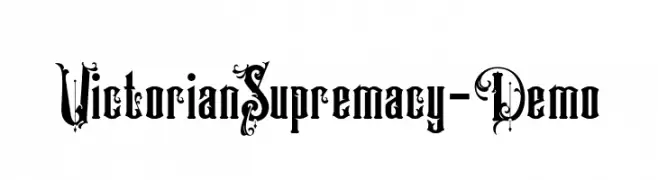
( Fonts by The Scriptorium - Dave Nalle )
An ornate and decorative font with intricate patterns and embellishments.
Ornate, decorative frames and borders with vintage flourishes.
( Fonts by Dieter Steffmann )
An ornate, decorative font with intricate floral patterns in each letter.
( Fonts by Dieter Steffmann )
An ornate, decorative font with intricate floral embellishments on uppercase letters.
( Fonts by Renn Crump - http://moorstation.org/typoasis/designers/renncrump/ )
A bold, decorative font with ornate swirls and vintage flair.
An ornate and decorative font with intricate floral embellishments.
An ornate, decorative font with intricate floral patterns in each letter.
An ornate, boxed decorative font with intricate floral patterns.
( Fonts by Barry Bujol - theoriginal19.blogspot.com )
An ornate, decorative font with intricate hollow designs and vintage flair.
( Fonts by www.houseoflime.com )
Intricate vintage-style decorative dividers.
( Fonts by www.houseoflime.com )
Ornamental divider glyphs with intricate, symmetrical designs.
( Fonts by Toto )
An ornate and decorative serif font with intricate floral embellishments.
( Fonts by Chank Co. - www.chank.com )
An ornate, vintage-style font with intricate flourishes and bold, decorative elements.
An ornate, decorative font with distressed textures and elaborate flourishes.
( Fonts by www.dcoxy.com )
A collection of decorative ornaments and flourishes for elegant design projects.
( Fonts by Maelle.K - Thomas Boucherie )
An ornate, decorative font with vintage flair and intricate detailing.
( Fonts by Imran Nasution )
A decorative font with ornate borders and a vintage, elegant style.